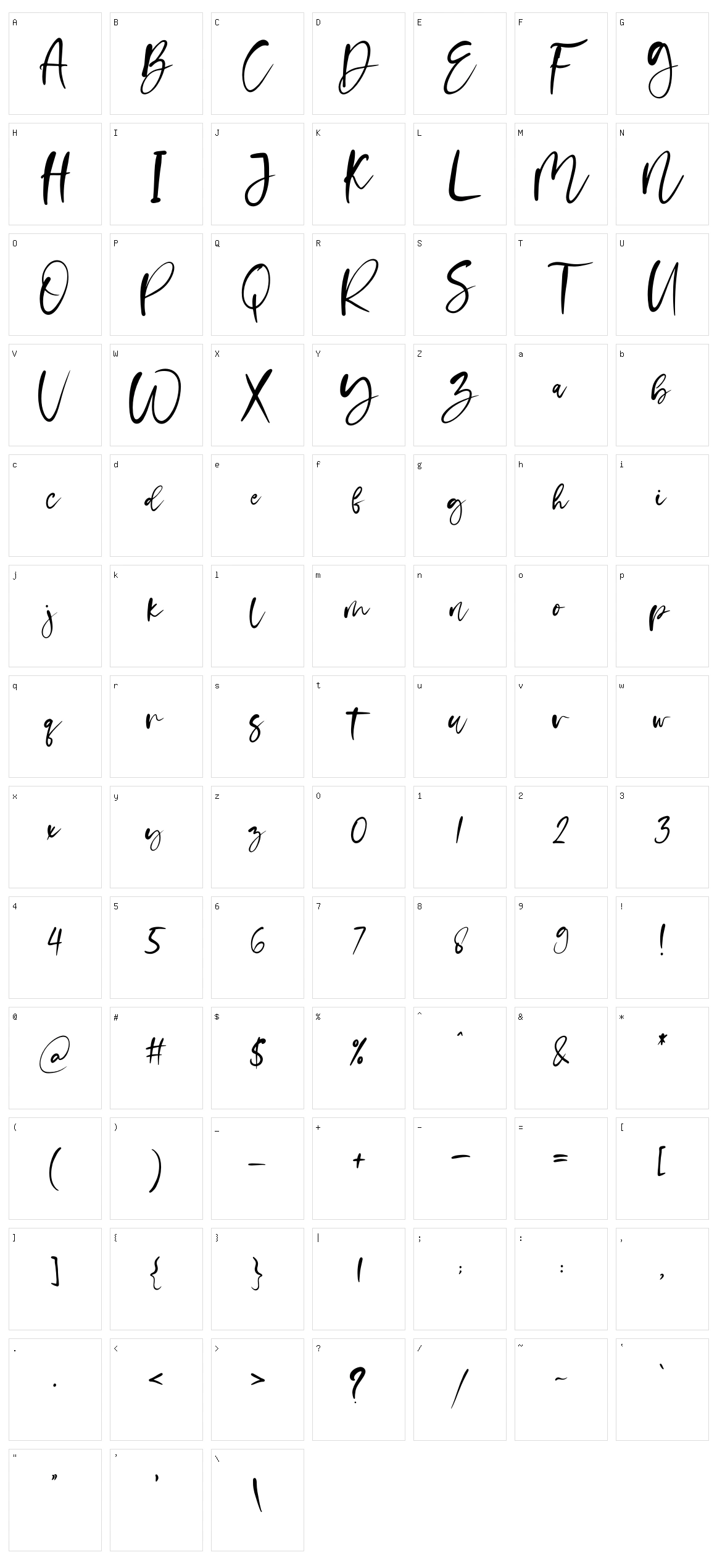
The free font Creamy Corn is carefully designed by Fikryal studio, showcasing a thoughtful balance of creativity and usability and falls under the Script font style. When you download the ZIP file, it contains only 45.14 KB of font files, making it lightweight and quick to download. Please review the license details below to understand permitted usage and distribution rights. If license information is not available, we recommend using this font for personal projects only or contacting the author directly for commercial usage permissions.